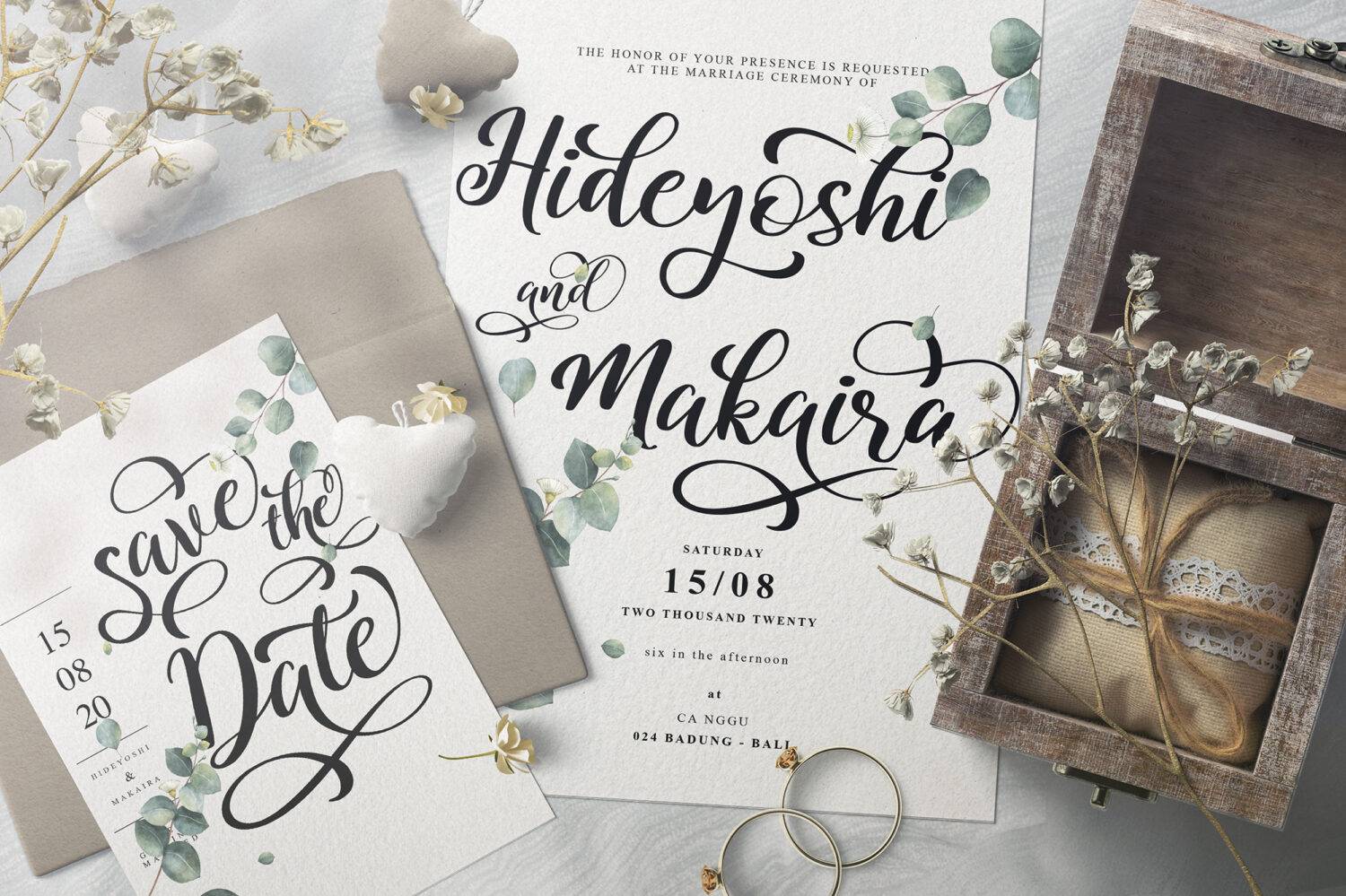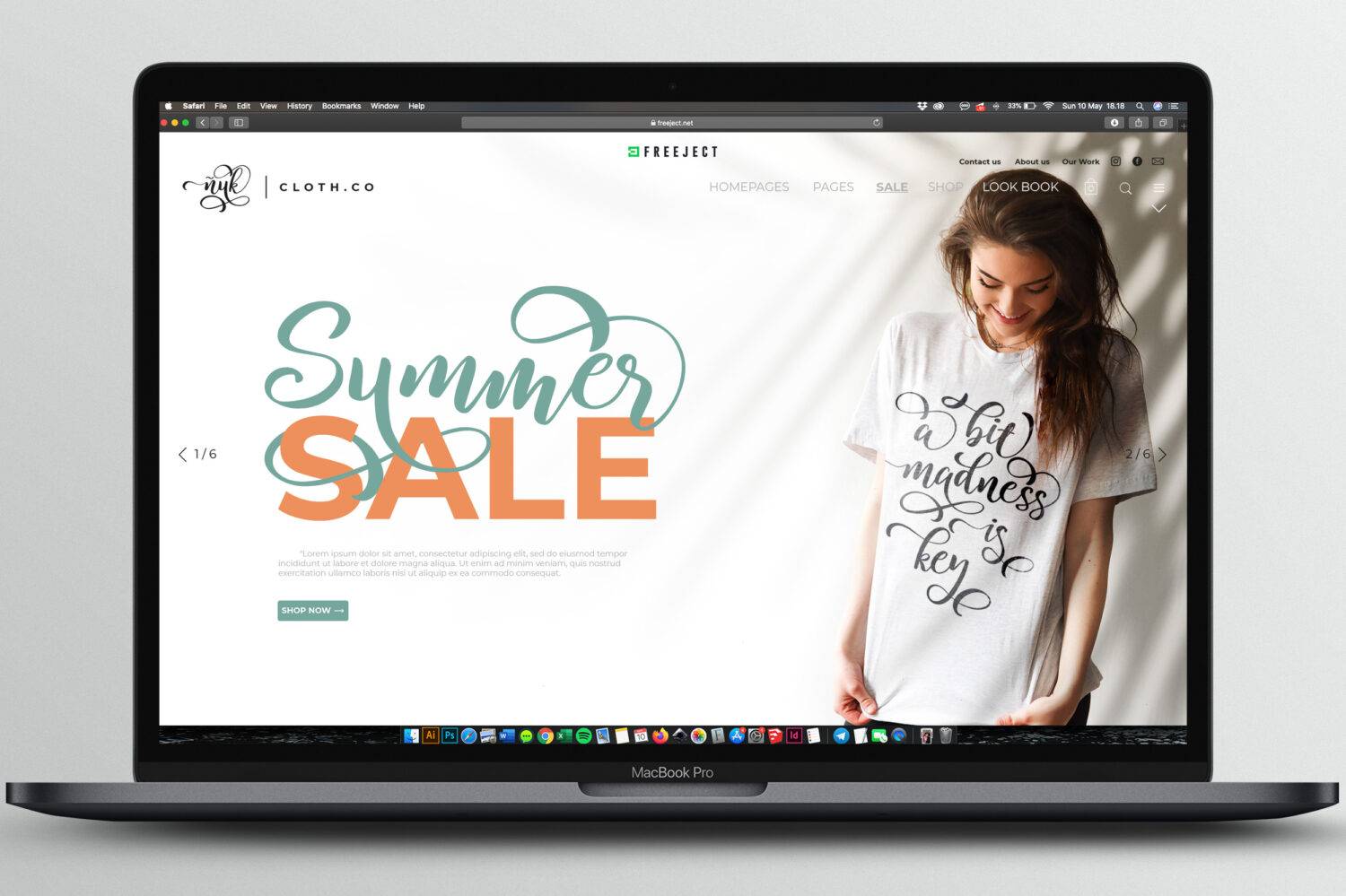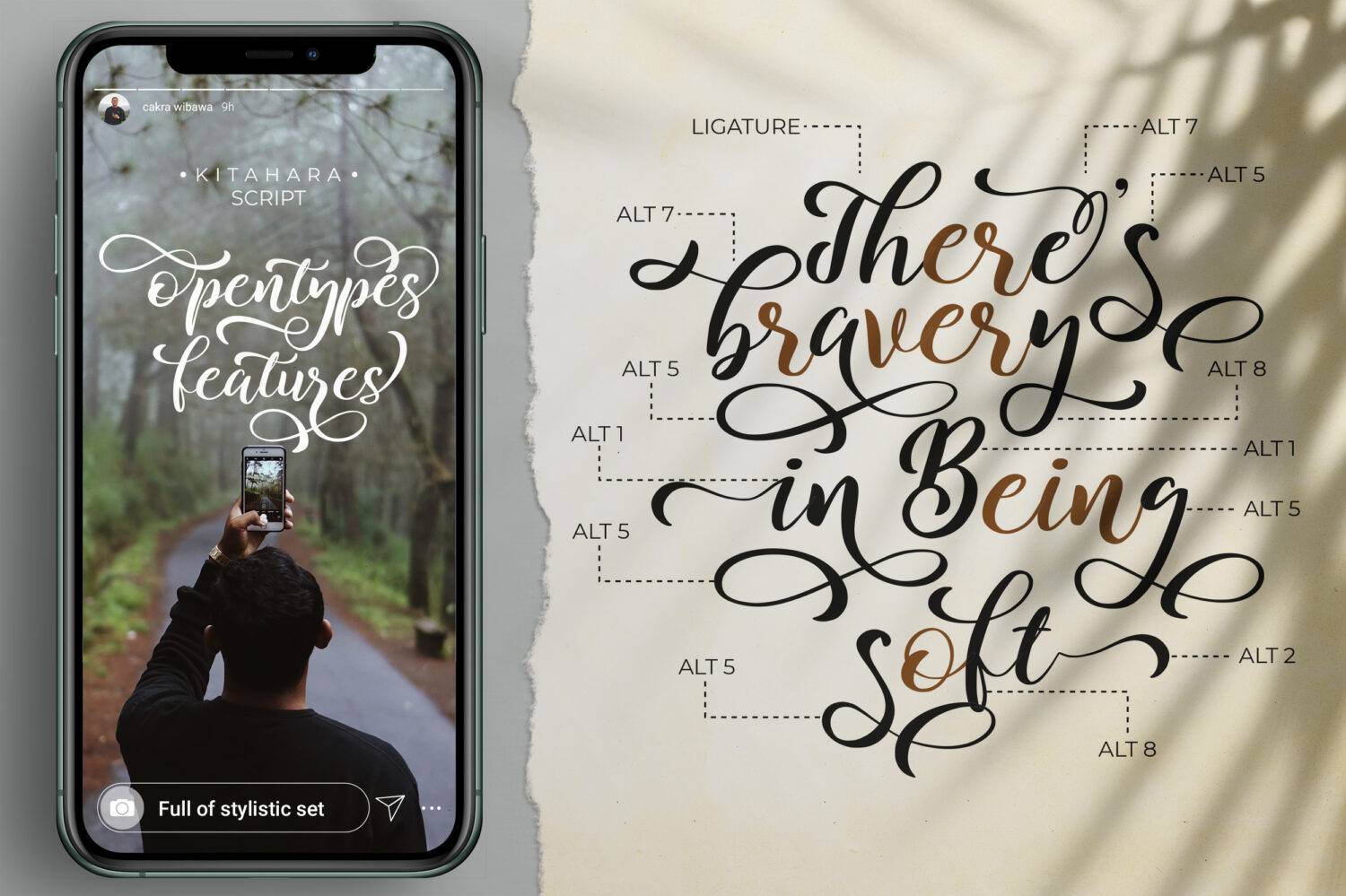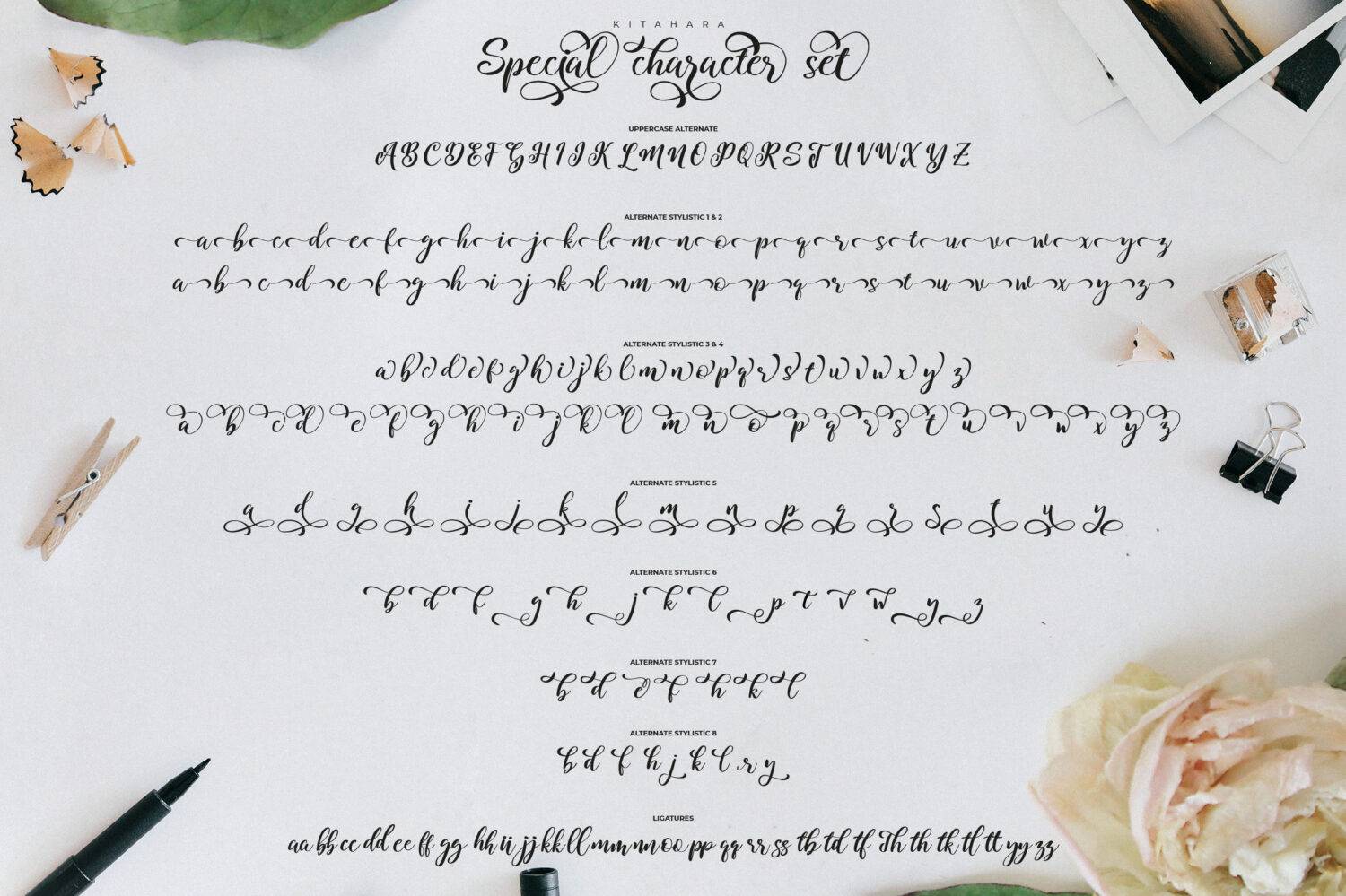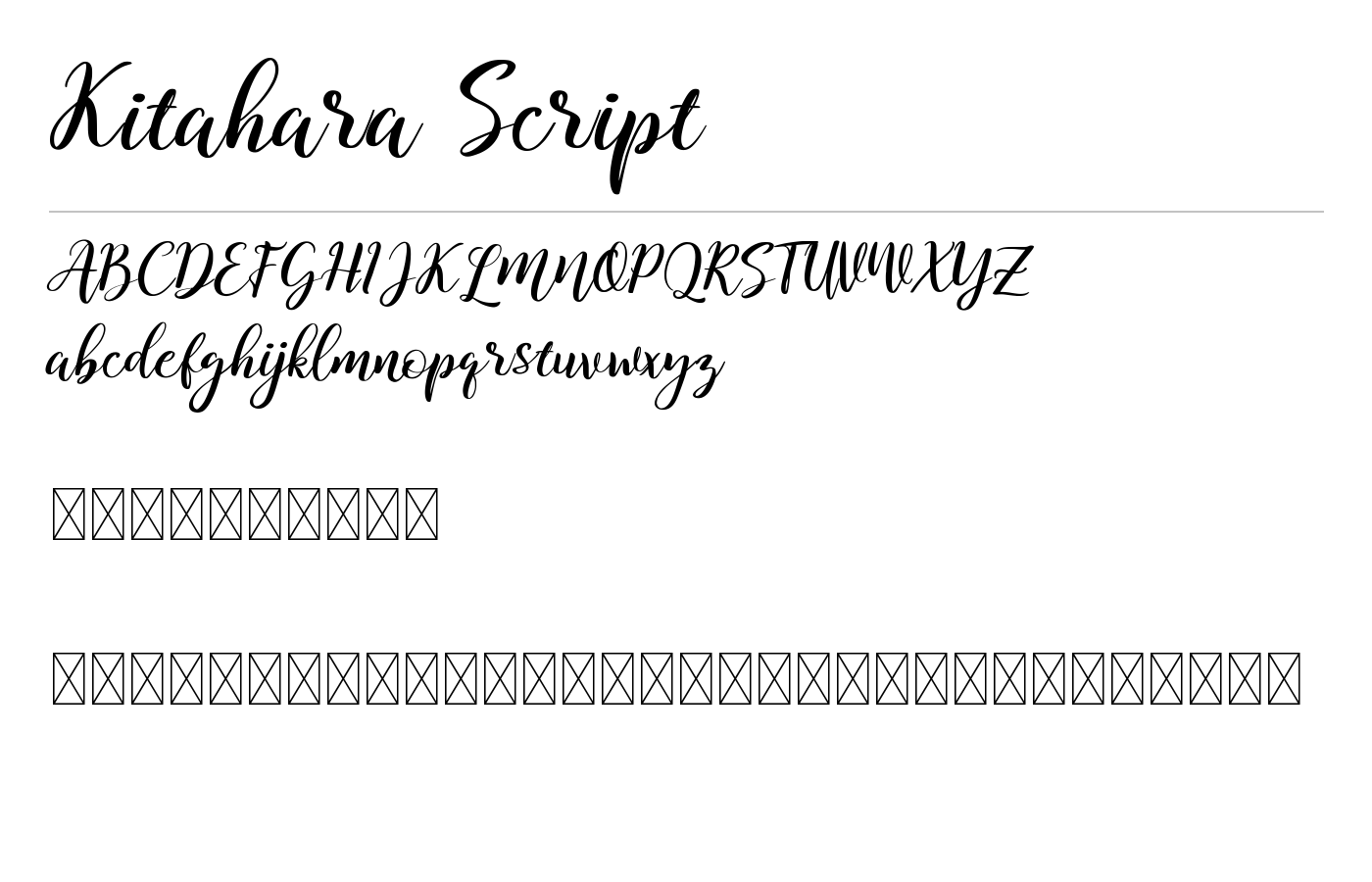
Kitahara Script is an elegant and flowing script font that combines graceful curves with a lively, handwritten feel. Its moderate contrast and smooth, connected letterforms make it perfect for adding a personal, sophisticated touch to invitations, branding, and stylish headlines. This font works beautifully in designs that need a chic, refined, yet approachable appearance.
Kitahara Script Font
About Kitahara Script Font